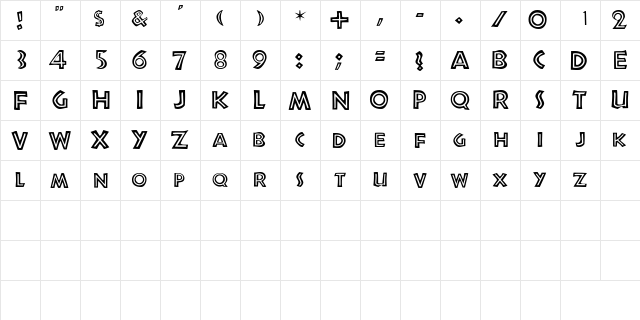
ScrewballSCapsSSK Regular
ScrewballSCapsSSK is a composed and adaptable typeface that performs quietly and consistently across a wide range of design contexts.